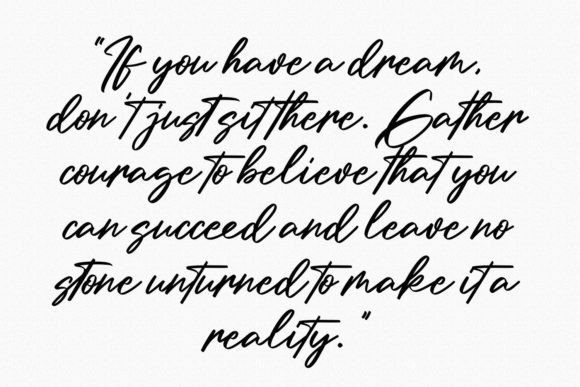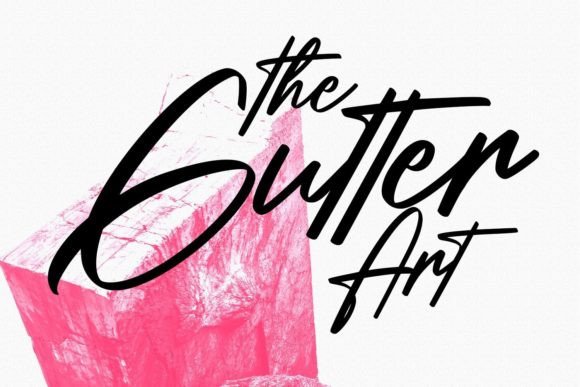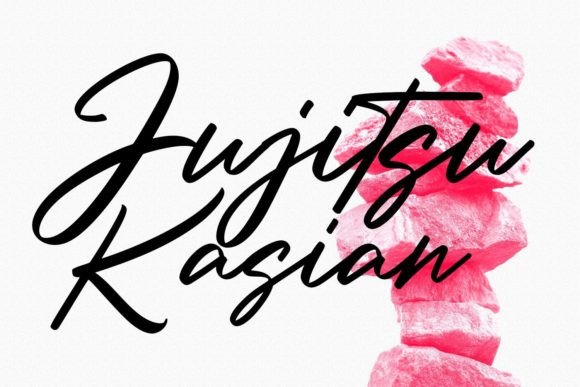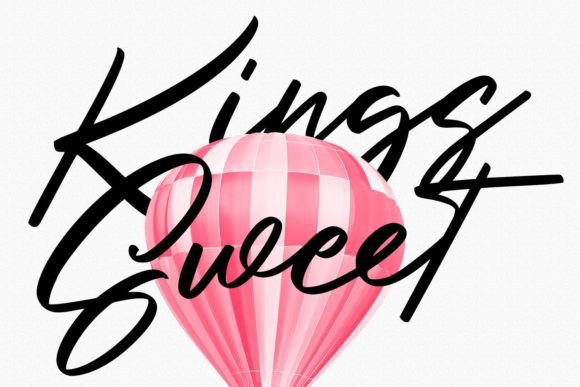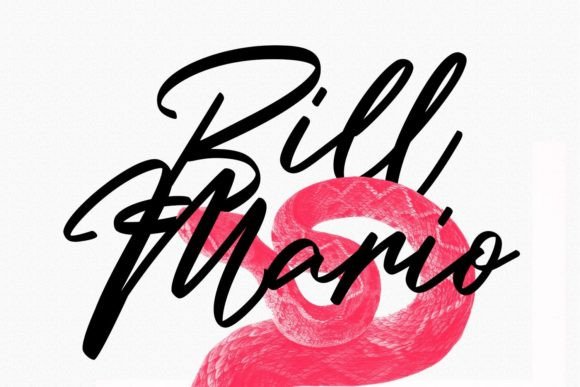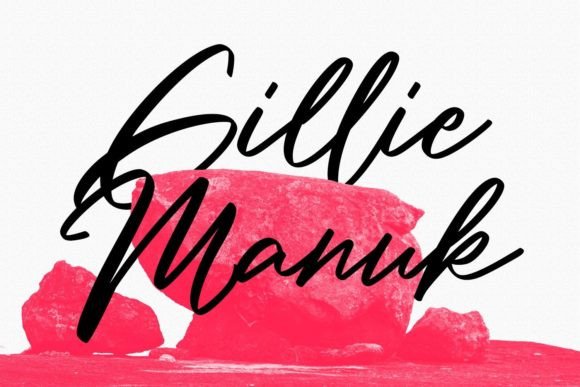
Introduction to Millie Bobby Font
Have you ever been stuck on a creative project, staring at a blank page, and wondering how to bring your vision to life? I’m sure we’ve all been there at some point. For designers, finding the perfect font can be a game-changer. That’s why we’re excited to introduce you to the Millie Bobby Font, a stunning handwritten font that’s about to revolutionize your design game.
This elegant and sophisticated font is not just a pretty face – it’s a high-quality design resource that’s perfect for any creative project. With its transparent background and versatility, you can use it to create stunning designs that will leave a lasting impression. Whether you’re working on a personal project or a professional one, the Millie Bobby Font is sure to be a valuable addition to your design toolkit.
Key Features of Millie Bobby Font
- High-quality font with a transparent background, ideal for creative projects that require a clean and minimalist design.
- Unique characteristics: Millie Bobby Font features a modern and sleek design, with subtle nuances that add depth and interest to any text.
- Perfect for use in a variety of creative projects, including graphic design, digital art, and typography-based art.
Honest Review: Millie Bobby Font
Here’s what works well: ✨ It’s incredibly versatile and can be used for a wide range of designs, from logos to typography. The high-quality design ensures that the font looks great on any background, including a transparent background.
However, I do have a few minor complaints: ⚠️ The font is not as extensive as some other popular fonts, with only a limited number of styles and weights available.
Overall, I’m really impressed with the Millie Bobby Font. It’s a solid design resource that’s perfect for designers working on creative projects. While it may have some limitations, the benefits far outweigh the drawbacks.
Millie Bobby Font
The Millie Bobby Font is a versatile and stylish font that can be used for various creative projects. It features a high-quality design with a transparent background, making it perfect for graphic designers and digital artists.
To get the most out of the Millie Bobby Font, use it in conjunction with other design elements to create a visually appealing design. Experiment with different font sizes, colors, and styles to find the perfect combination.
The Millie Bobby Font is perfect for:
- Digital art
Alternatives to Millie Bobby Font
Fontin is a free font that offers a similar aesthetic to Millie Bobby Font, with a high-quality, modern design perfect for creative projects. It features a clean and minimalist look, ideal for applications with a transparent background. When to use: Designing a website or digital product with a clean and minimalist design.
Comparison: Fontin has a more subtle and understated look compared to Millie Bobby Font, which makes it a great alternative for projects where a more reserved design is required.
Carolyna Pro is a high-quality font that offers a creative and elegant design perfect for design projects. It features a wide range of styles and weights, making it a versatile design resource. When to use: Designing a high-end brand or luxury product that requires a sophisticated and elegant design.
Comparison: Carolyna Pro has a more refined and sophisticated look compared to Millie Bobby Font, which makes it a great alternative for projects where a more premium design is required.